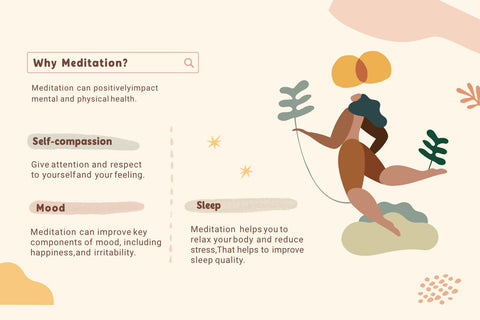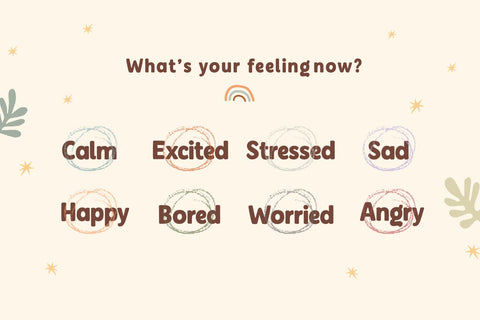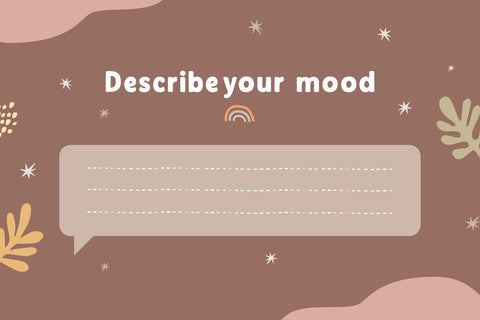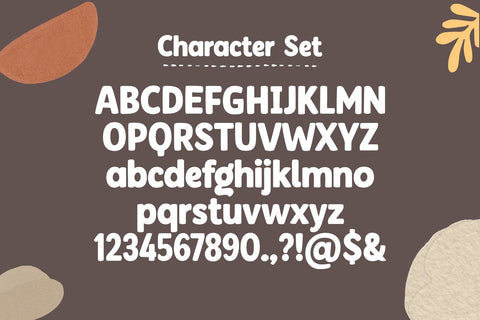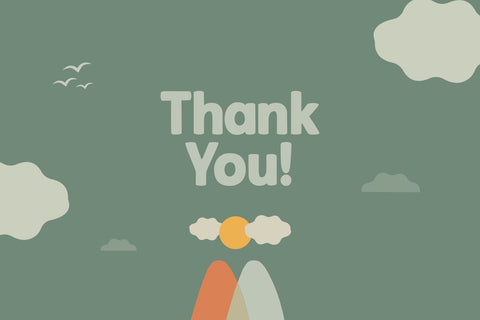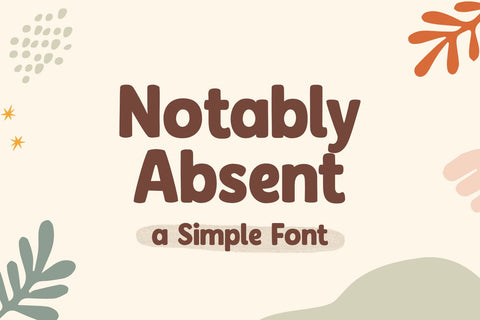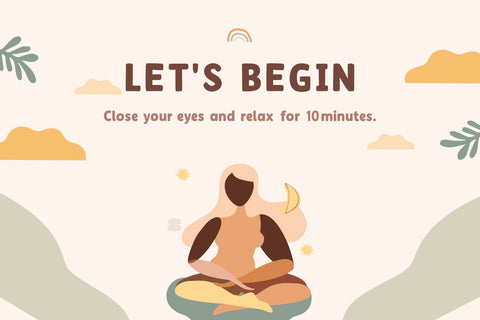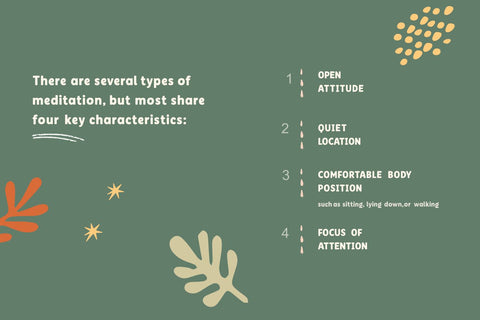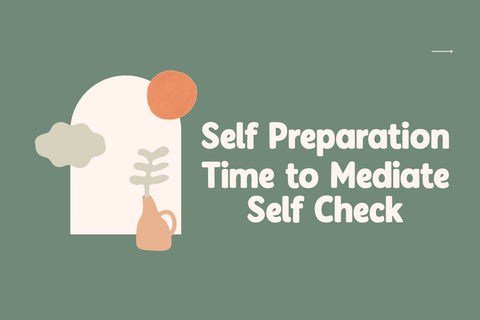
Notably Absent - a Simple Font
Notably Absent is a cool and vintage styled display font. It will elevate a wide range of crafting ideas, from cards, to branding, labels and much more.